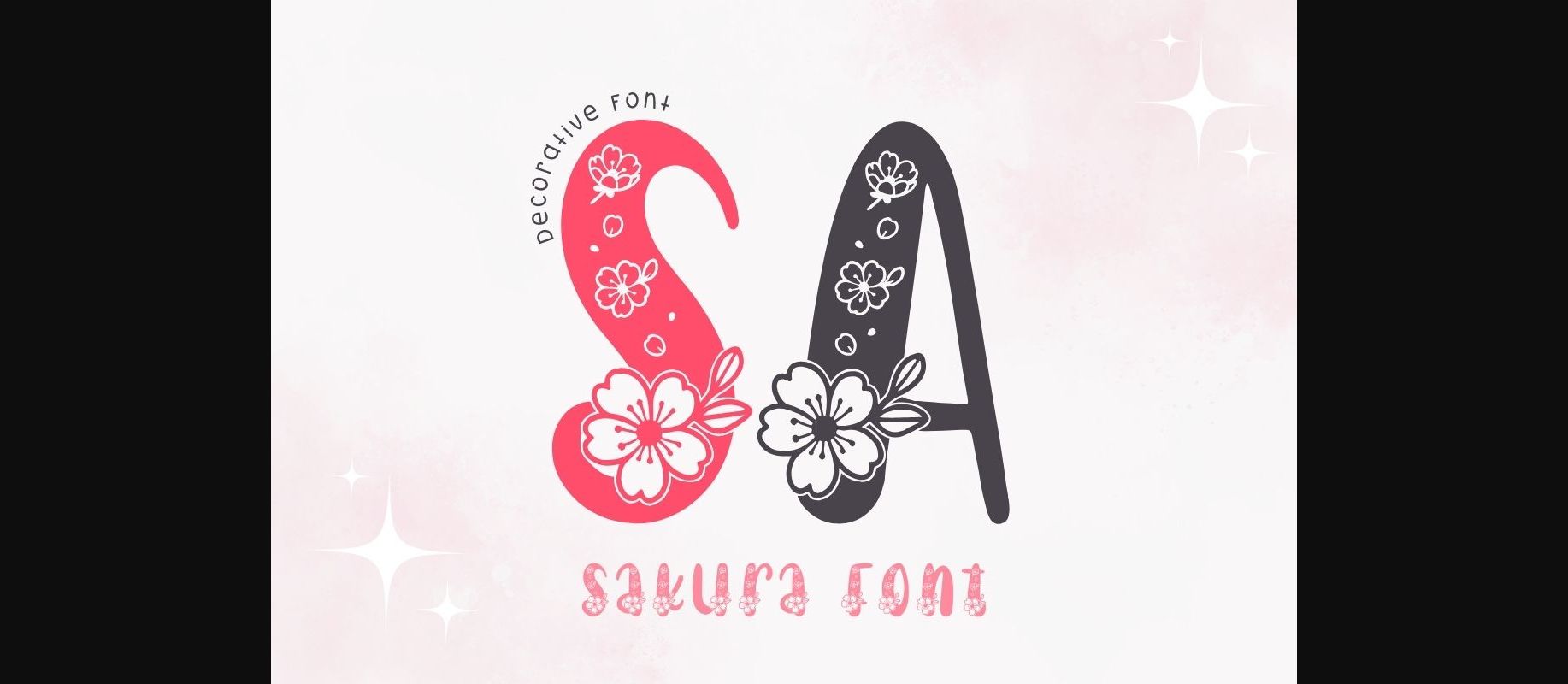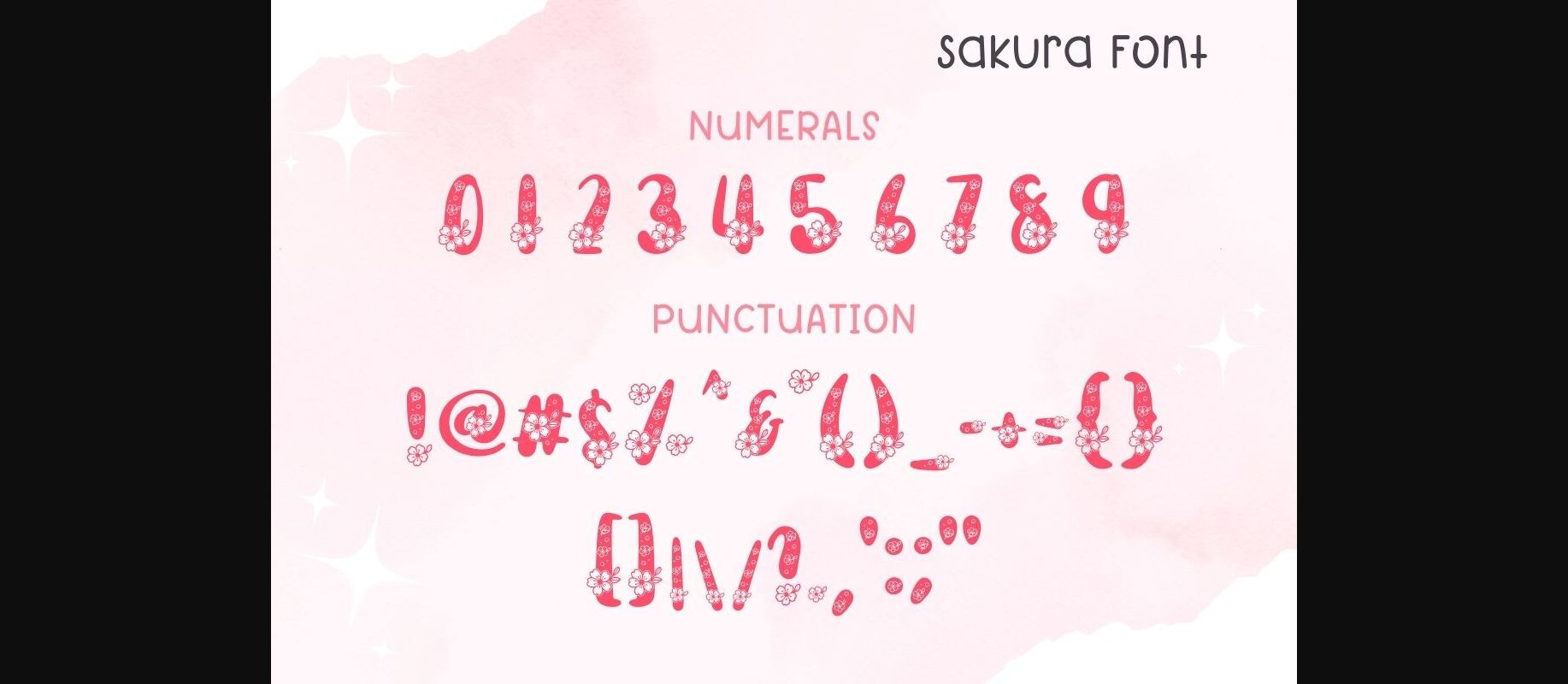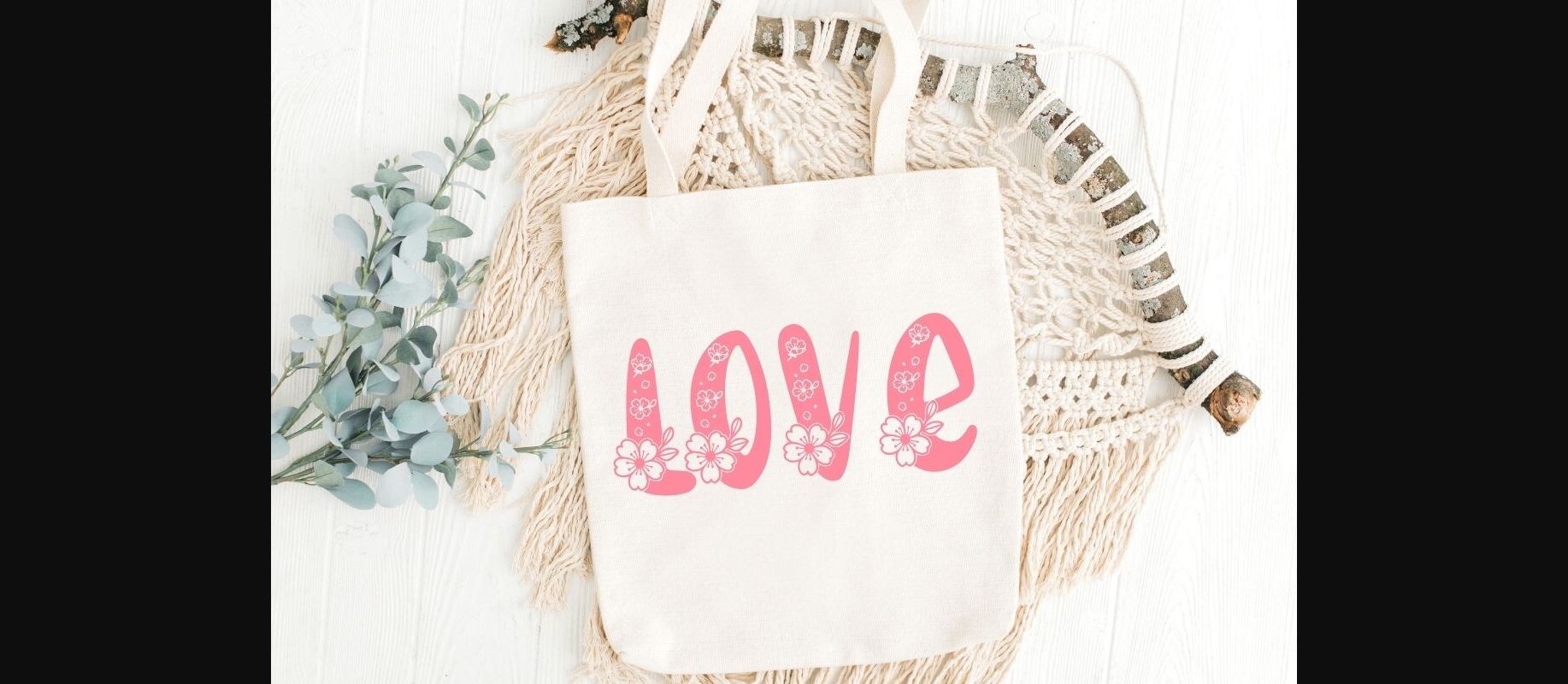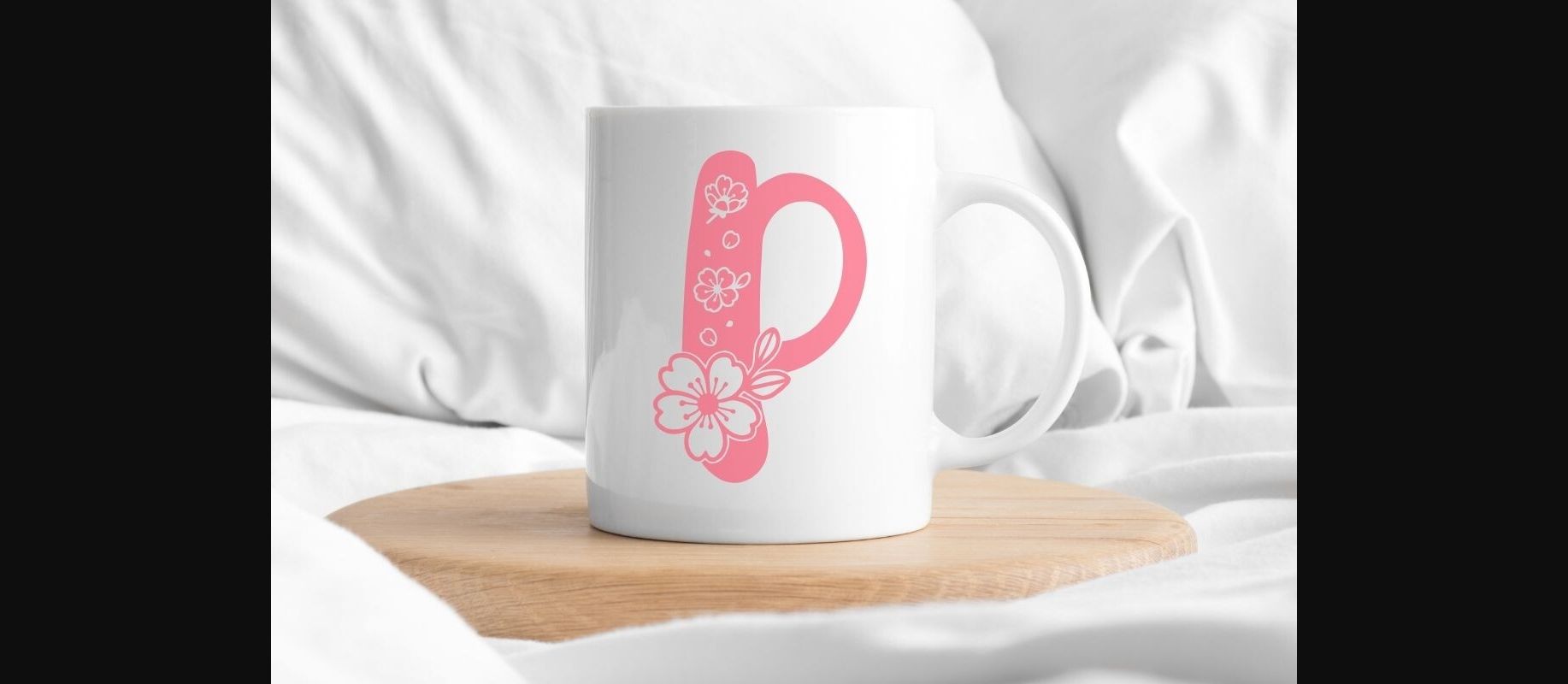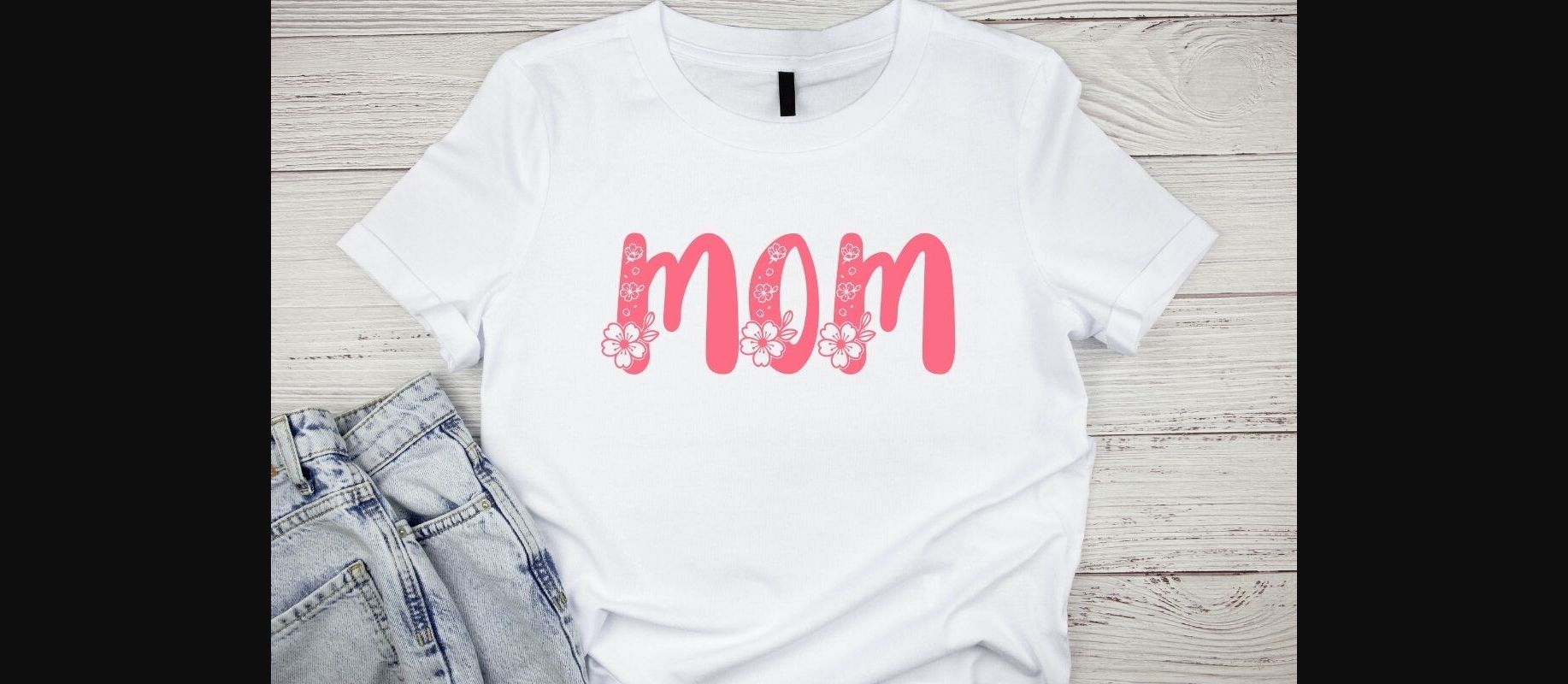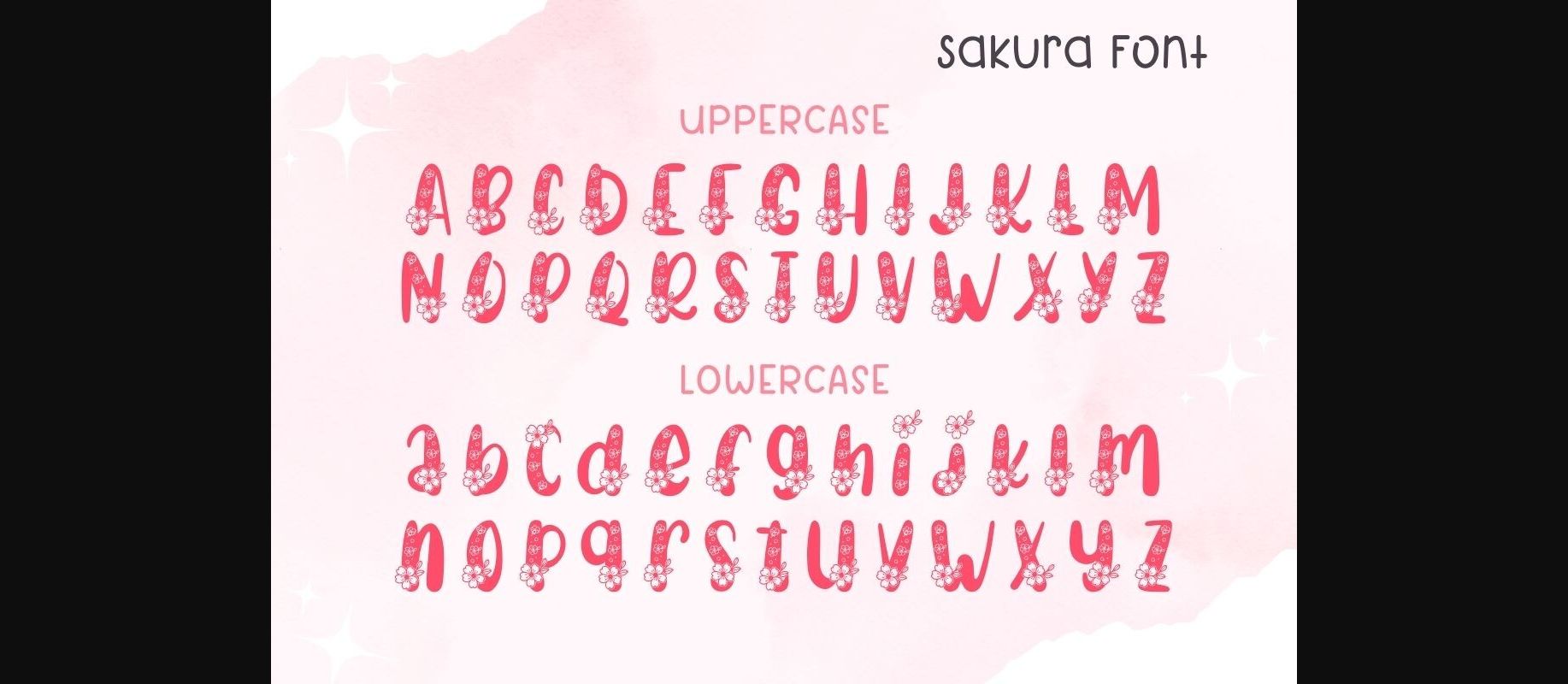
About Sakura Font
Sakura is a lovely decorative font. This font uses cute flower element silhouettes combined with handwritten font. This font has a quirky style. Perfect for creating a wide variety of new designs to match products such as banners, content, mugs, cards, shirts, stationery, social media posts, and more!